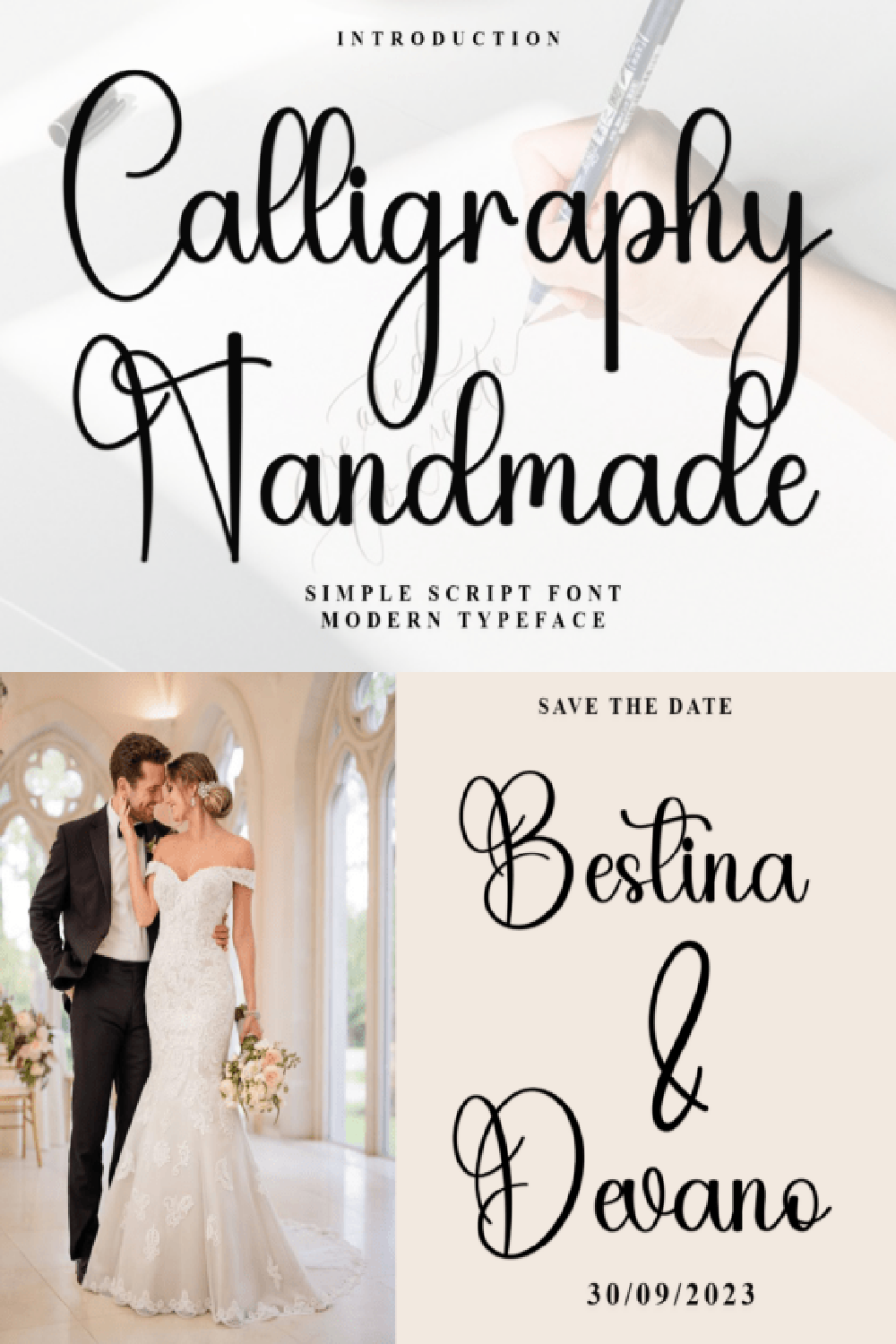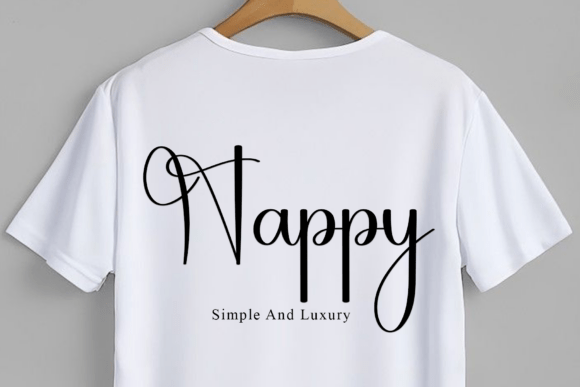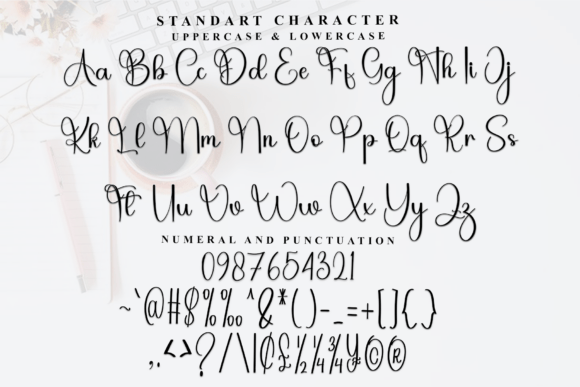
Calligraphy Handmade Font
About the Calligraphy Handmade Font
Let us introduce you to Calligraphy Handmade Font, where timeless design meets modern craftsmanship. Calligraphy Handmade is a beautiful and eye-catching font designed with a soft, unique touch. Its distinctive strokes give it a special character, making it meaningful and versatile for future use. With various characters, it’s perfect for design projects, crafts, and other creative works.